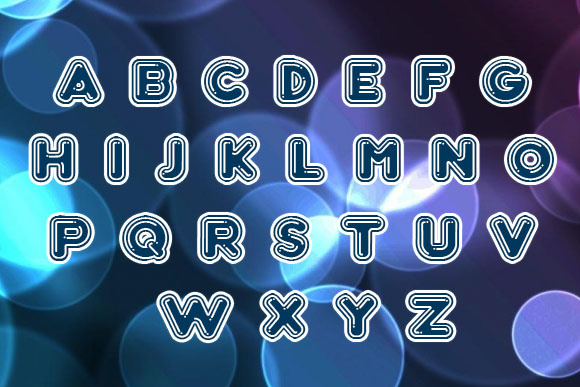
Creating Visual Magic: The Power of Bubble 3D Font
Have you ever stared at a beautiful, bubbly font and thought, “Wow, I wish I could create something like that?” We’ve all been there – mesmerized by the whimsical designs that seem to transport us to a world of pure imagination. As designers, we’re constantly on the lookout for that special something that sets our projects apart from the rest. And that’s exactly where the Bubble 3D Font comes in – a stunning bubble-style font that’s perfect for adding a touch of magic to your banners, headlines, t-shirts, and more.
With its unique 3D effect, the Bubble 3D Font is a valuable asset for designers looking to create eye-catching visuals that capture attention. Whether you’re working on a branding project or a social media campaign, this font is sure to bring your designs to life in a way that’s both playful and professional.
Bubble 3D Font Key Features
- Unique 3D Bubble Design: The Bubble 3D Font features a unique and eye-catching 3D bubble design, adding a creative touch to any text.
- Large Character Set: Includes a wide range of characters, including uppercase and lowercase letters, numbers, and punctuation marks.
- Easy to Customize: The Bubble 3D Font can be easily customized using various font editing software, allowing for further personalization and creativity.
Bubble 3D Font Review
I recently had the chance to experiment with the Bubble 3D Font, and I must say it’s been an interesting ride. Here’s my honest take on this font.
- The unique 3D effect gives the text a playful and eye-catching appearance.
- The font is highly customizable, allowing you to adjust the depth, lighting, and other aspects to suit your design needs.
- It’s available in a wide range of languages, making it a great option for multilingual projects.
- The font can be quite heavy and may not be suitable for small text or headings.
- The 3D effect can sometimes make the text look cluttered or overwhelming, especially when used in large blocks of text.
- The font may not be as versatile as other options when it comes to different design styles or themes.
The Bubble 3D Font is a fun and creative option for designers looking to add some visual interest to their projects. While it may have some limitations, it’s definitely worth considering for the right type of design. With a little experimentation and careful placement, this font can be a great addition to your design toolkit.
Here are some tips for getting the most out of the Bubble 3D Font:
- Experiment with different font sizes and colors to create a visually appealing effect.
- Use the font in combination with other design elements, such as images and shapes, to create a cohesive look.
- Play with the font’s 3D effect to create a unique and eye-catching design.
The Bubble 3D Font is commonly used in:
- Marketing materials, such as brochures and flyers.